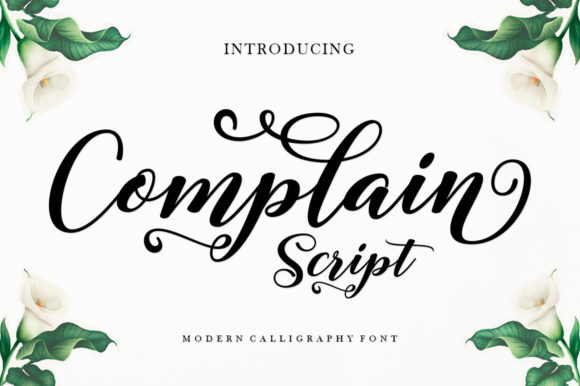
Unleash the elegance and charm of Complain Script, a ravishing script font that will captivate your audience with its intricate details and sophisticated curves. This exquisite font, meticulously crafted by STRAIGHT.CO, is a testament to the artistry and dedication that goes into creating a truly remarkable typeface.
As a script font, Complain Script possesses an inherent grace and fluidity that lends itself perfectly to a variety of design projects. Whether you're crafting a heartfelt quote, designing a captivating logo, or creating an enchanting invitation, this font will add a touch of elegance and refinement to your work.
With its PUA encoding, Complain Script ensures that you have effortless access to all its glyphs and swashes, empowering you to unleash your creativity and explore endless possibilities. Whether you're a seasoned graphic designer or just starting your design journey, this user-friendly font is sure to become a cherished tool in your creative arsenal.
Complain Script is not just another font; it's an experience. Its meticulously crafted characters dance across the page, evoking a sense of wonder and inspiration. Its versatility extends beyond the realm of digital design, as it can also be used for hand lettering, calligraphy, and other traditional art forms.
Immerse yourself in the world of Complain Script and discover the transformative power of typography. Let this font ignite your creativity and guide you towards creating designs that resonate with your audience. Its charm and elegance will leave an unforgettable impression, making your projects stand out from the crowd.